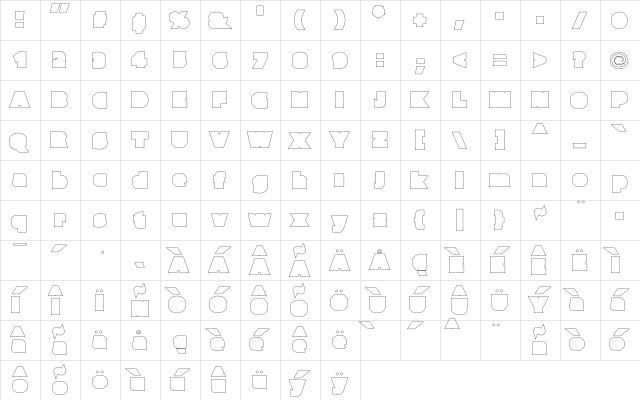
Parafuse Ultra Black Outline UltraBlackOutline
Design Context for Parafuse Ultra Black Outline Typeface
Parafuse Ultra Black Outline brings ornamental detail and strong personality to headlines and identities, where visual impact matters more than quiet functionality.
Font Pairing: Pair with a clean neutral sans-serif for body copy to let Parafuse Ultra Black Outline's character lead without overwhelming the composition.
Pro Tip: Use Parafuse Ultra Black Outline exclusively at display sizes — it was designed to be seen, not read at length. Let a neutral companion handle body copy.